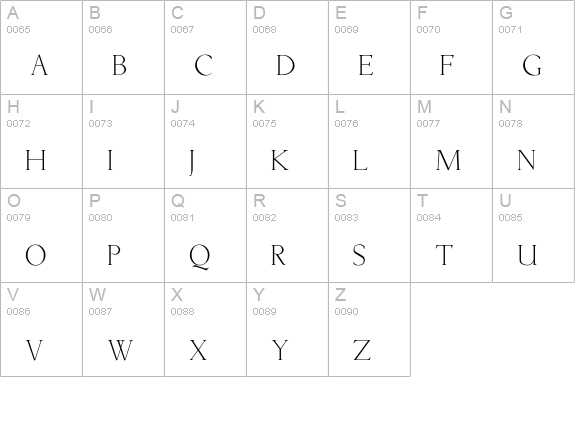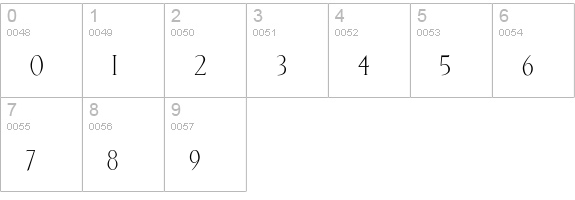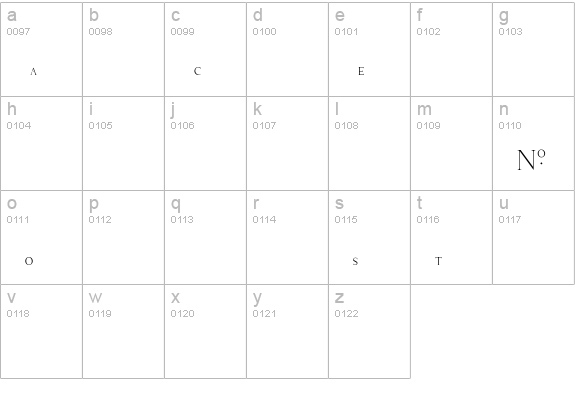
Livia font is a stunning and versatile typeface that effortlessly combines elegance with modernity. With its clean lines and stylish curves, Livia is perfect for a wide range of design projects, from branding to editorial design. This font exudes sophistication and charm, making it ideal for creating memorable and impactful visuals. The best part about Livia font is that it is completely free to download at FontsMarket.com. You can easily access this beautiful typeface and enhance your design projects with its timeless appeal. Whether you are working on a website, poster, or logo, Livia font will elevate your designs and leave a lasting impression on your audience. Download Livia font today and unleash your creativity with this exquisite typeface.